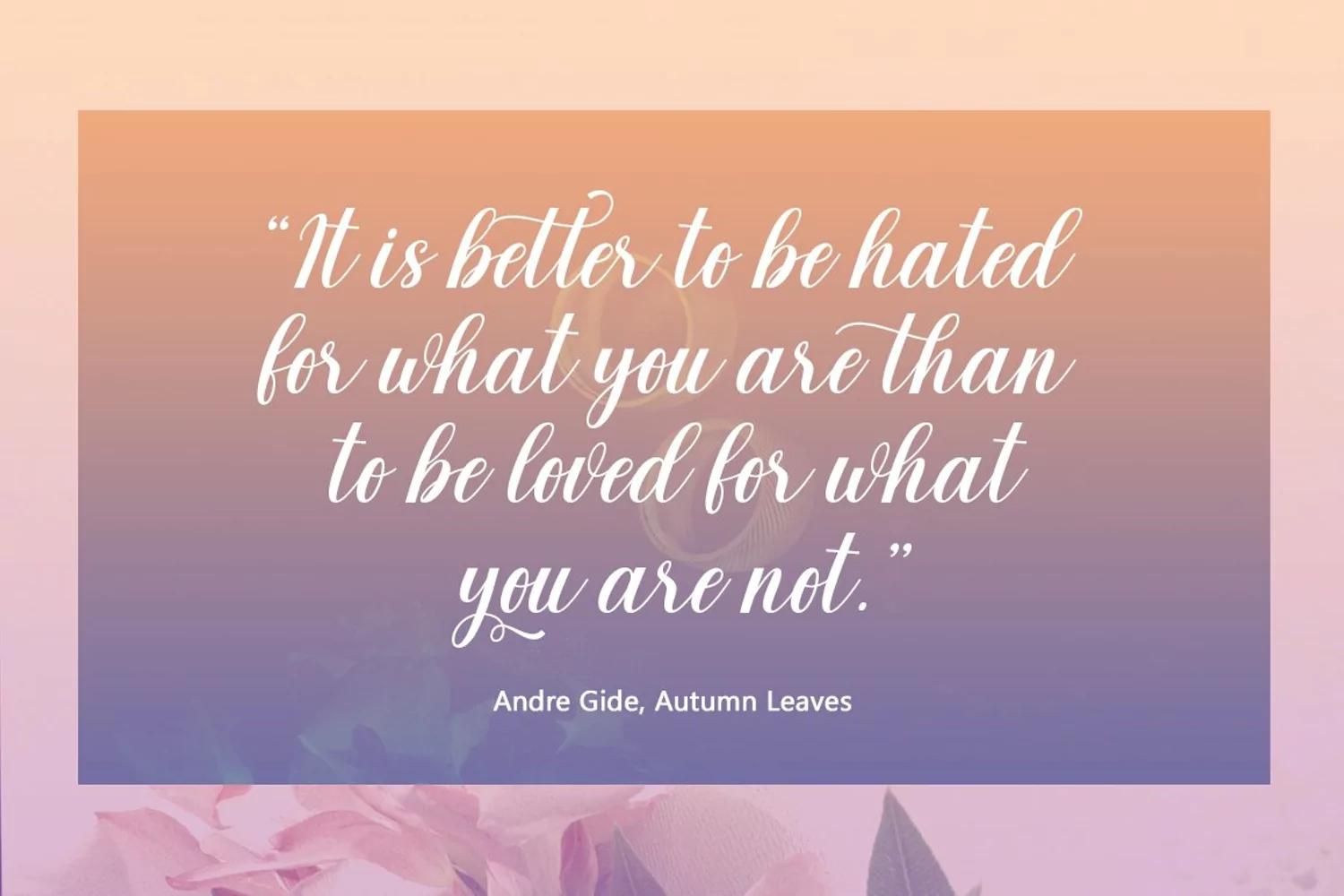
Endogan
Endogan Script is handwritten stylish copperplate calligraphy fonts, combines from copperplate to contemporary typeface with a dancing baseline, classic and elegant touch. Can be used for various purposes.such as headings, signature, logos, wedding invitation, t-shirt, letterhead, signage, lable, news, posters, badges etc.